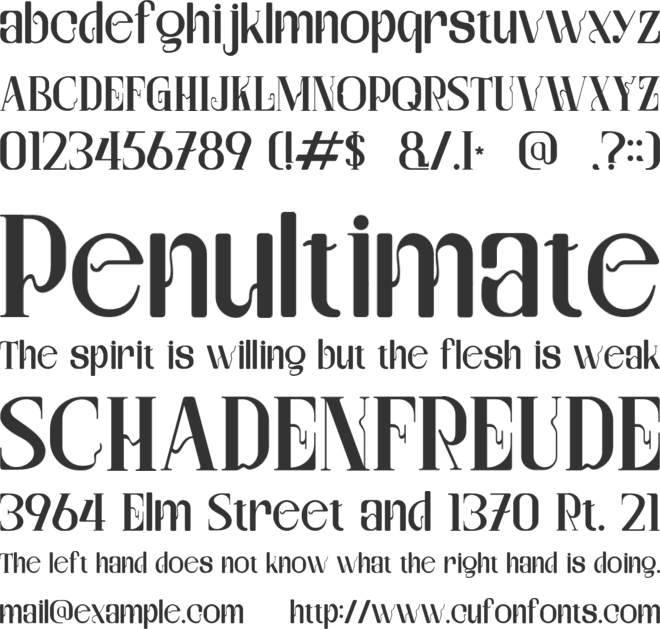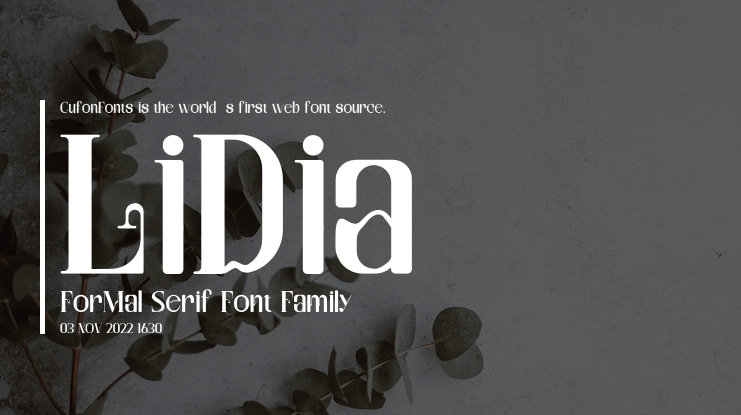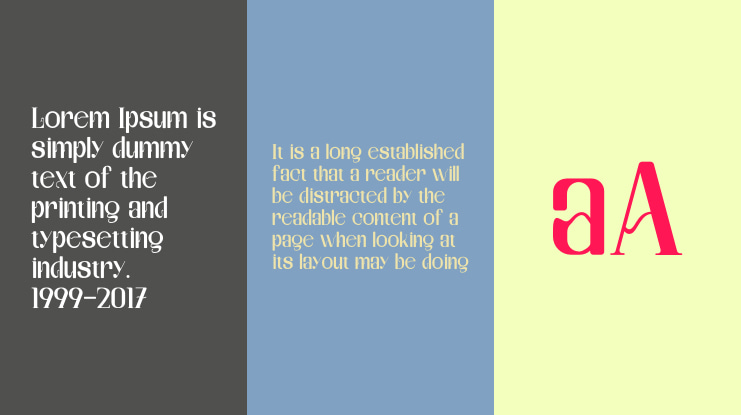
LiDia ForMal Serif Font
Lidia Formal Serif is an elegant display serif with slender, high-contrast strokes and refined thin serifs. Its tall, graceful letterforms carry a fashionable, luxurious tone that suits wedding invitations, editorial headlines, and premium branding. The delicate lines and airy rhythm give titles a sophisticated, modern-classic character.